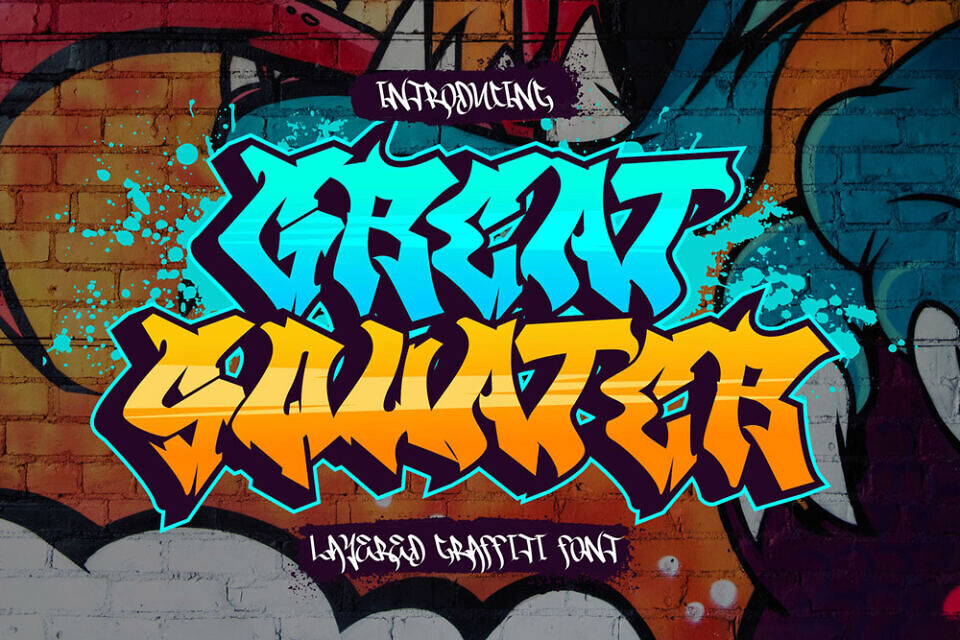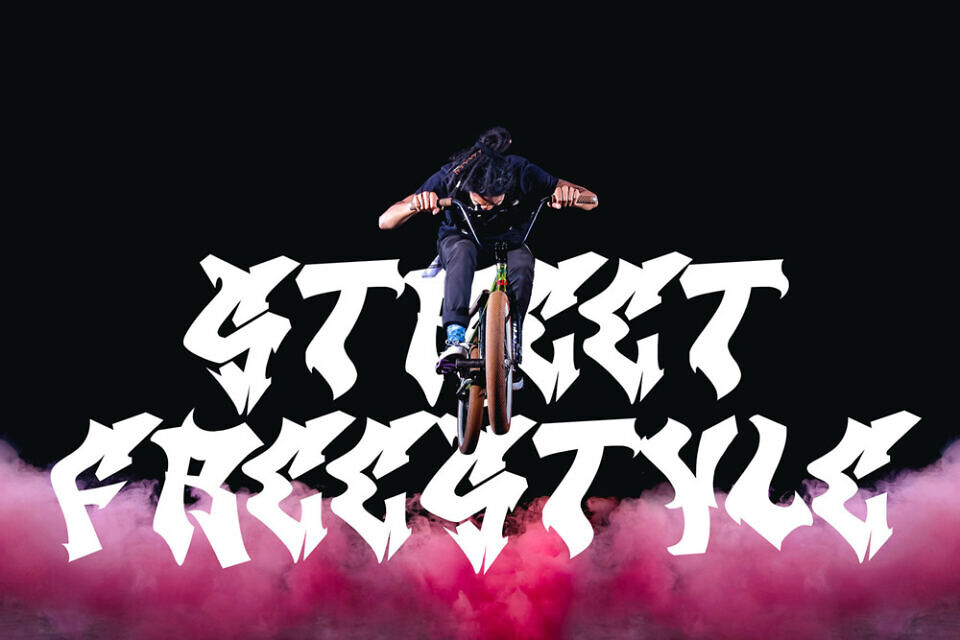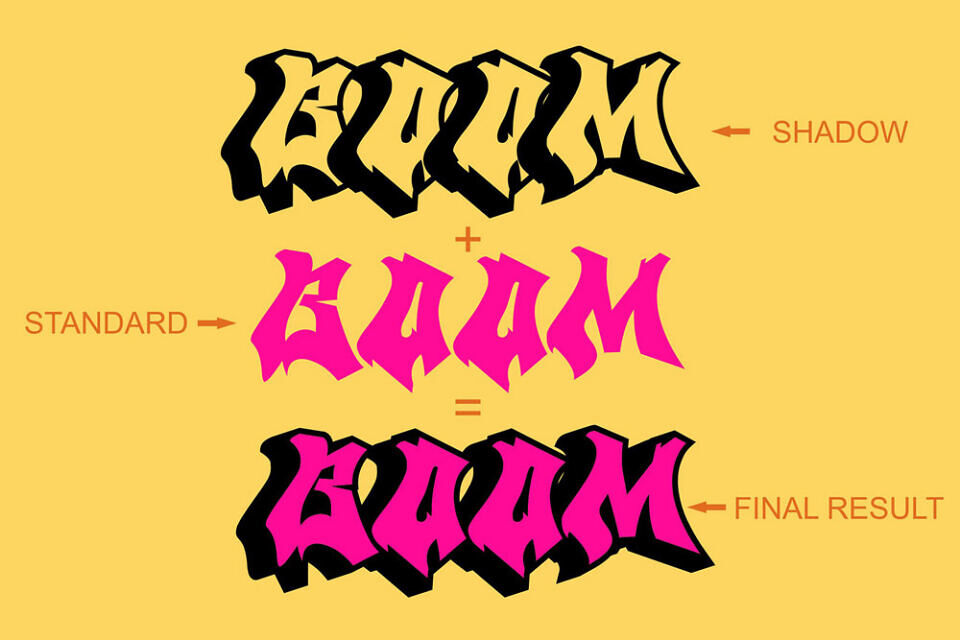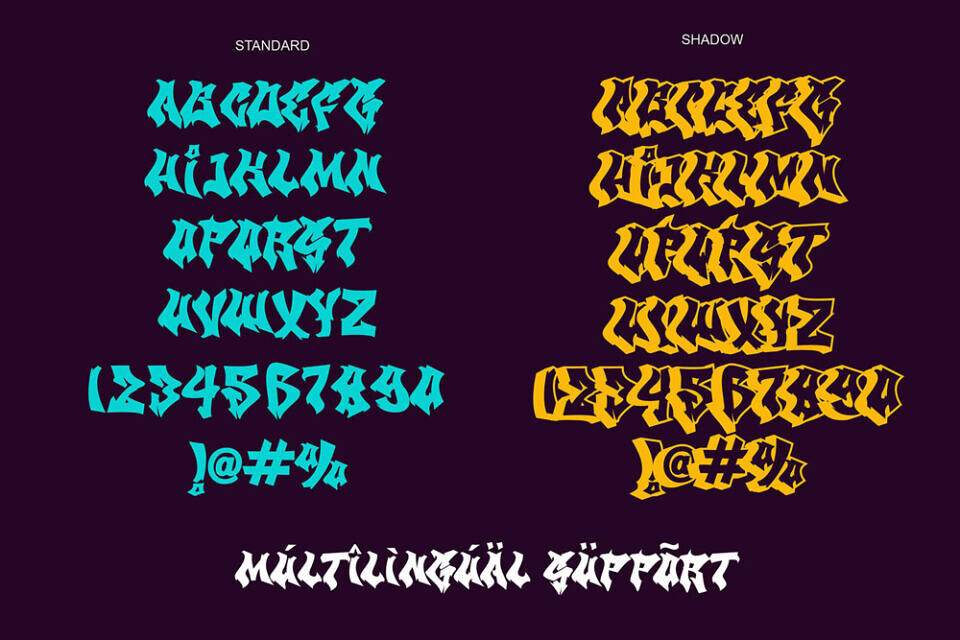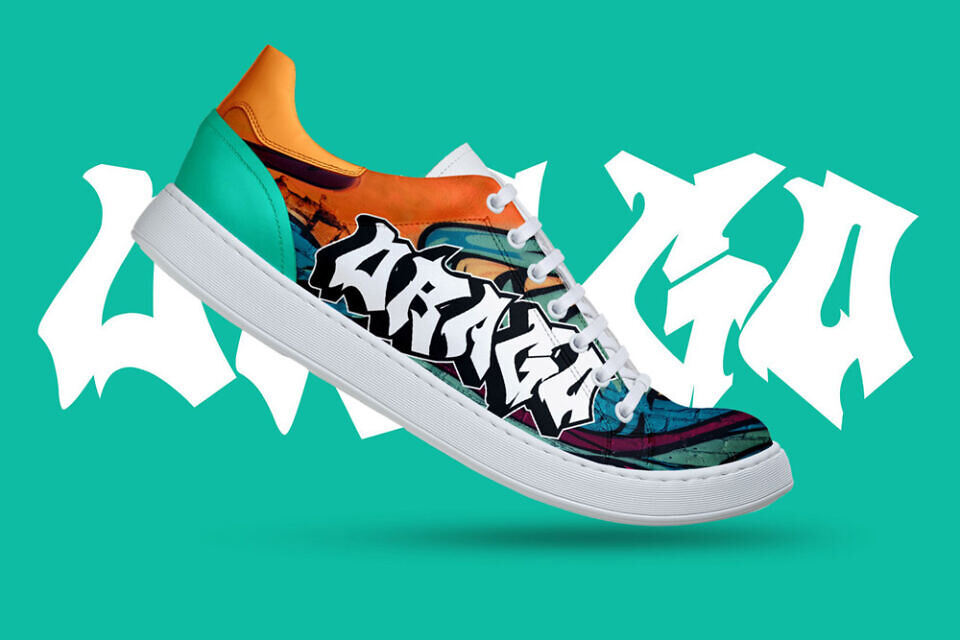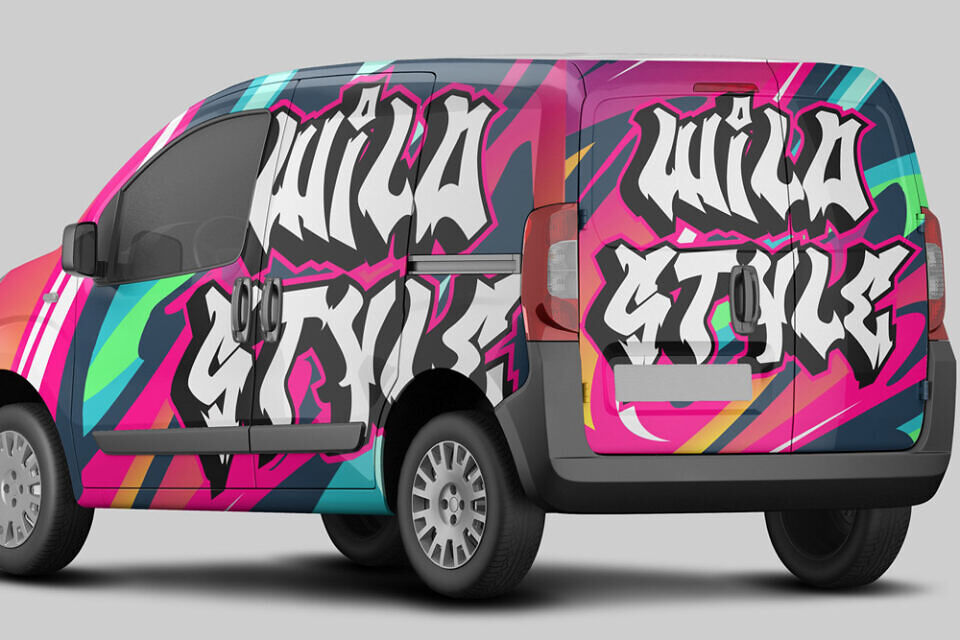
Great Squater is a wild graffiti font inspired by authentic street art culture, underground urban lettering, bold wildstyle graffiti, and aggressive shadow typography aesthetics. Designed with expressive letterforms and layered shadow effects, this urban display font delivers powerful visual energy for modern creative projects.
Whether you are building a streetwear brand, designing music artwork, creating gaming graphics, or developing social media campaigns, Great Squater provides the edgy graffiti typography needed to make your designs stand out.